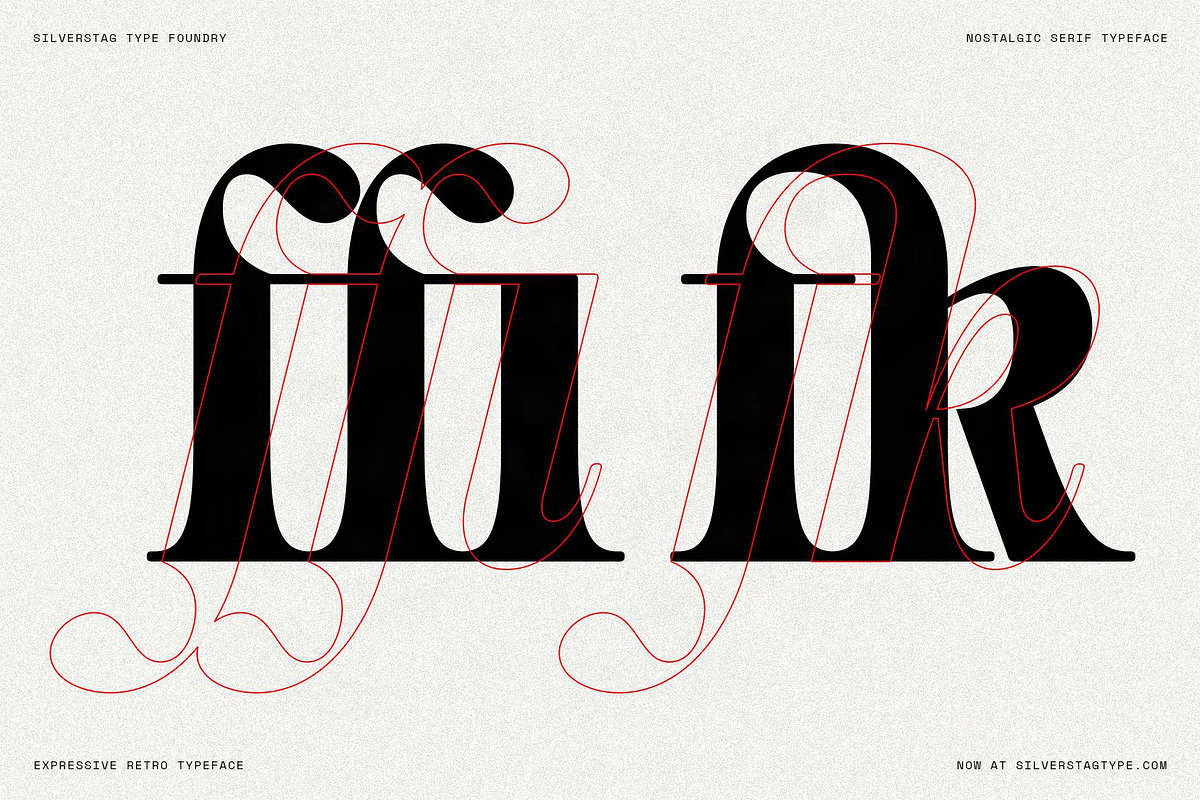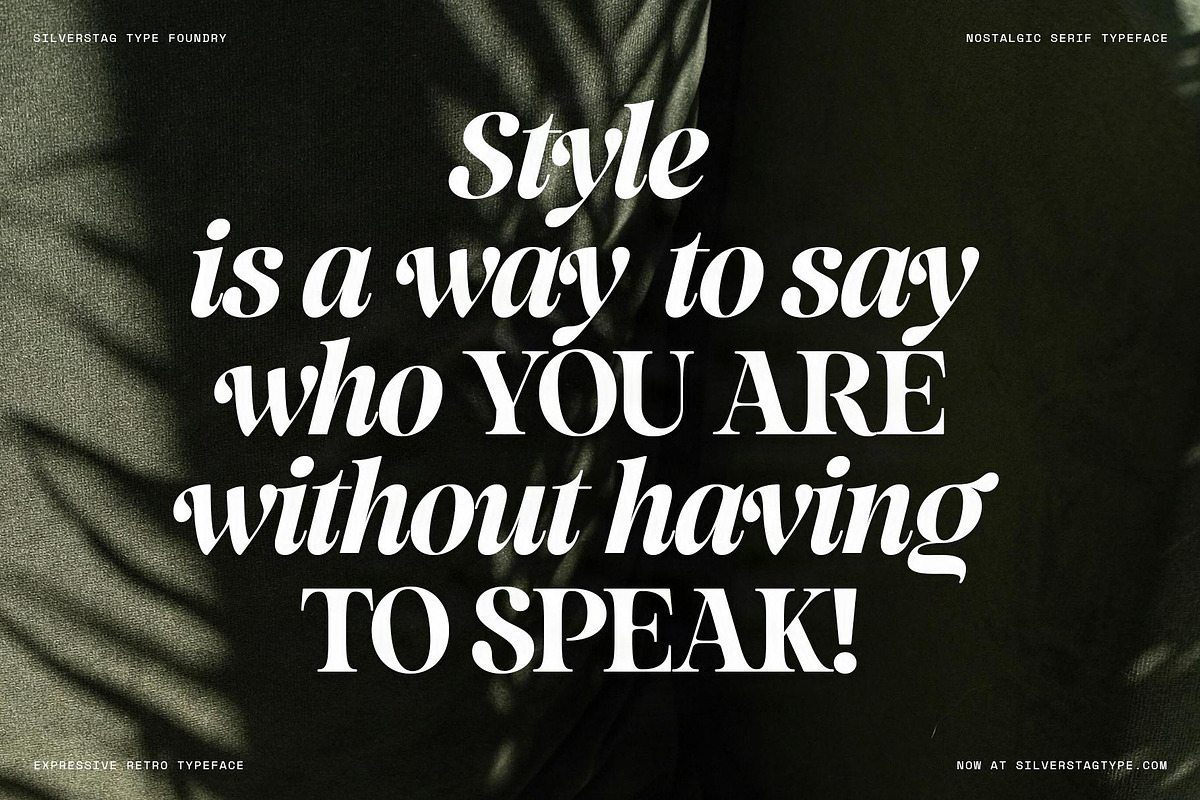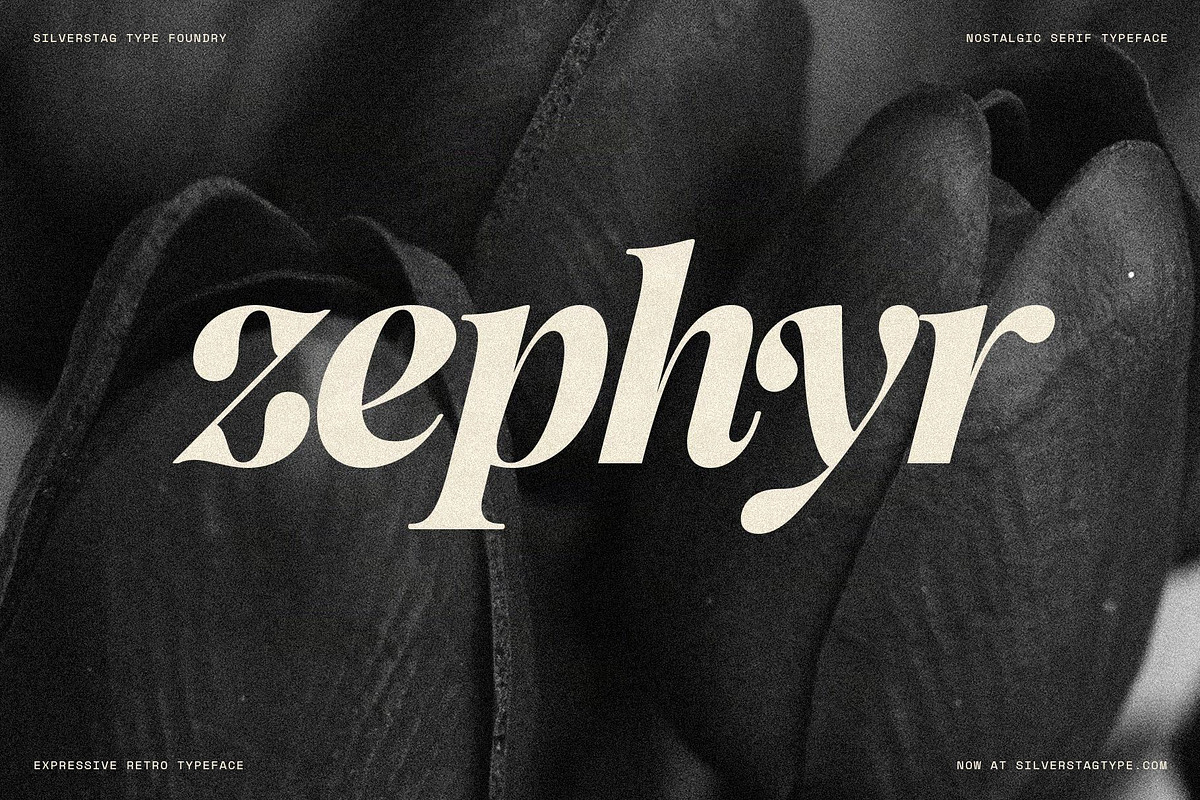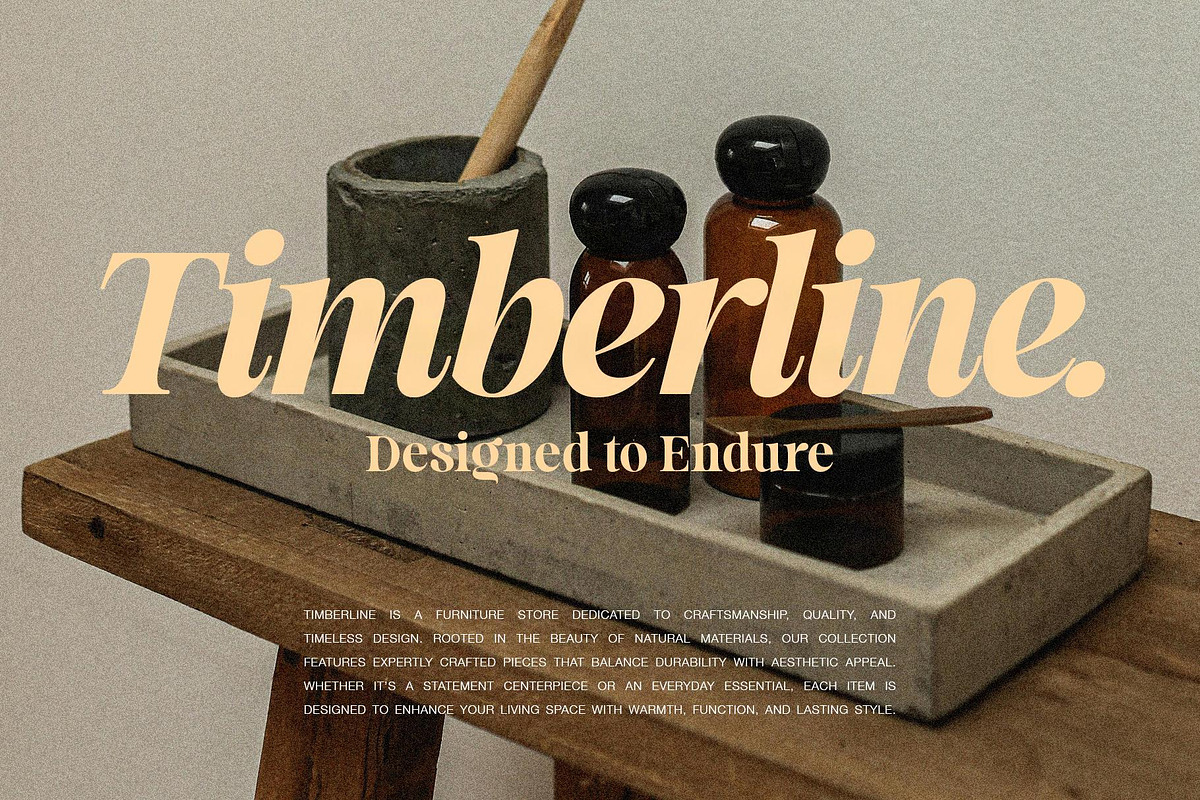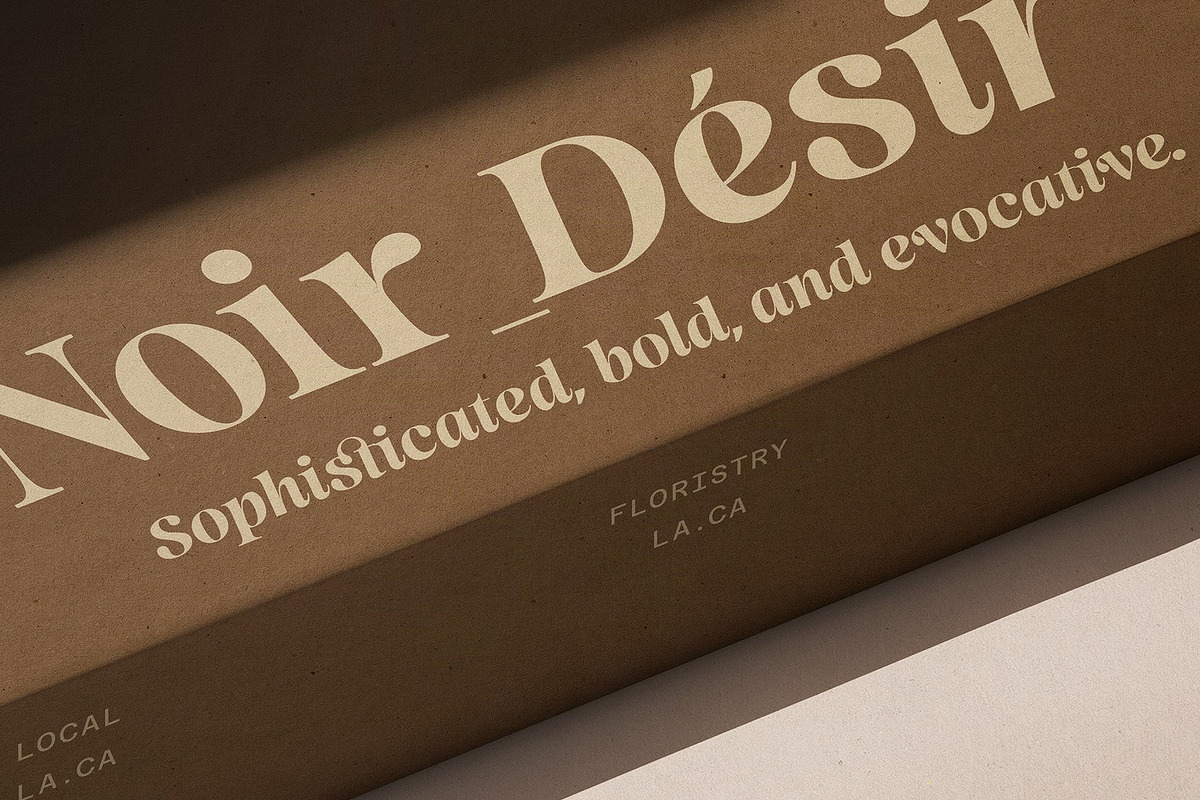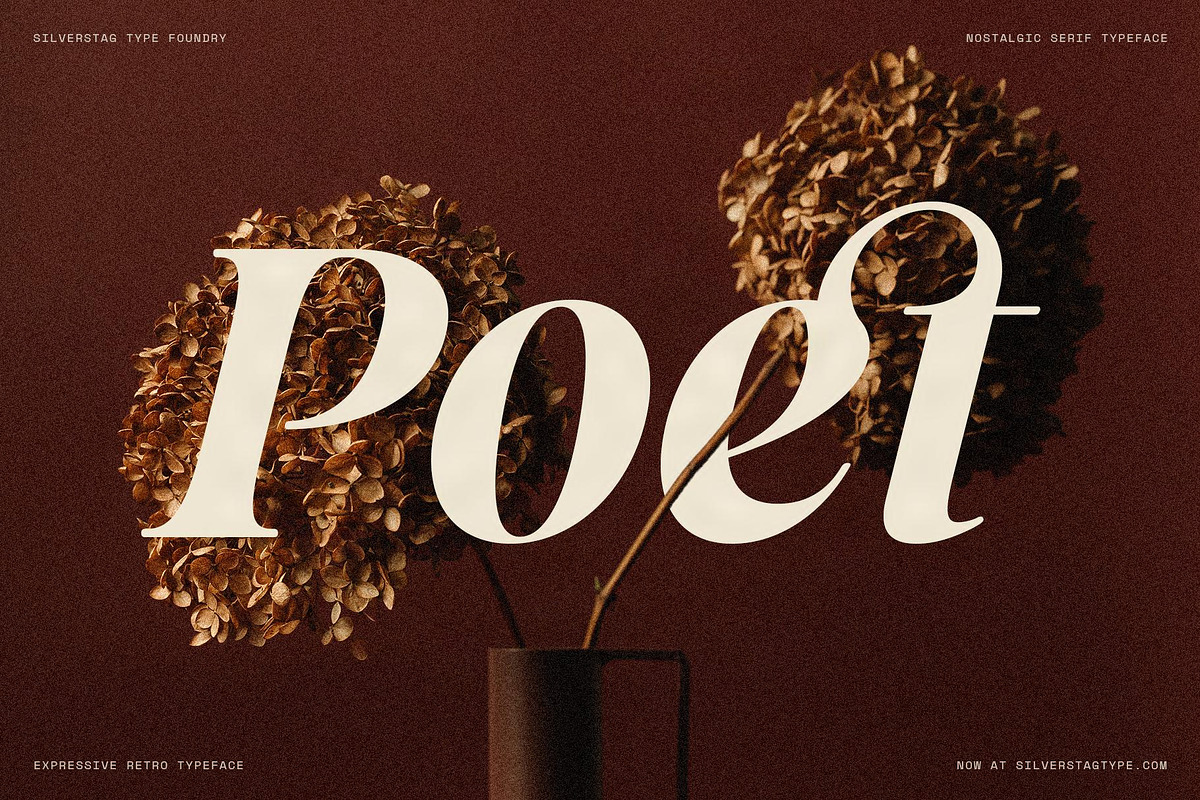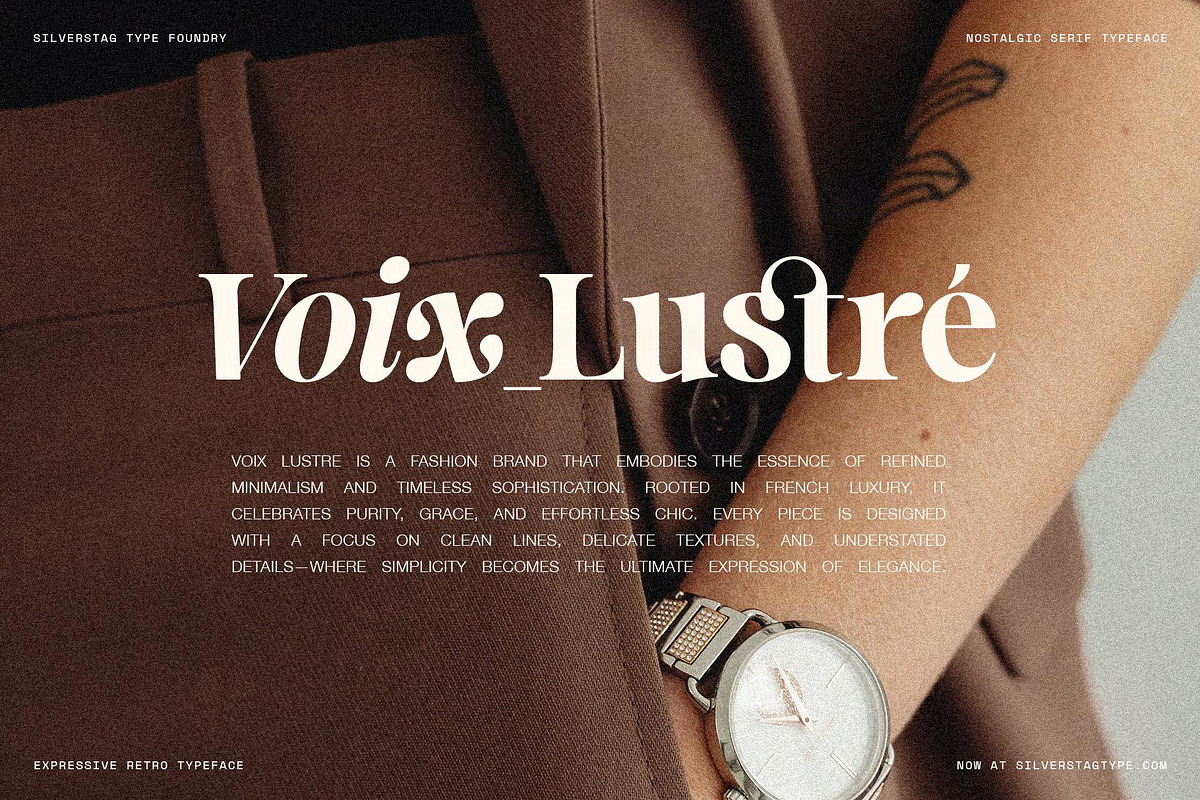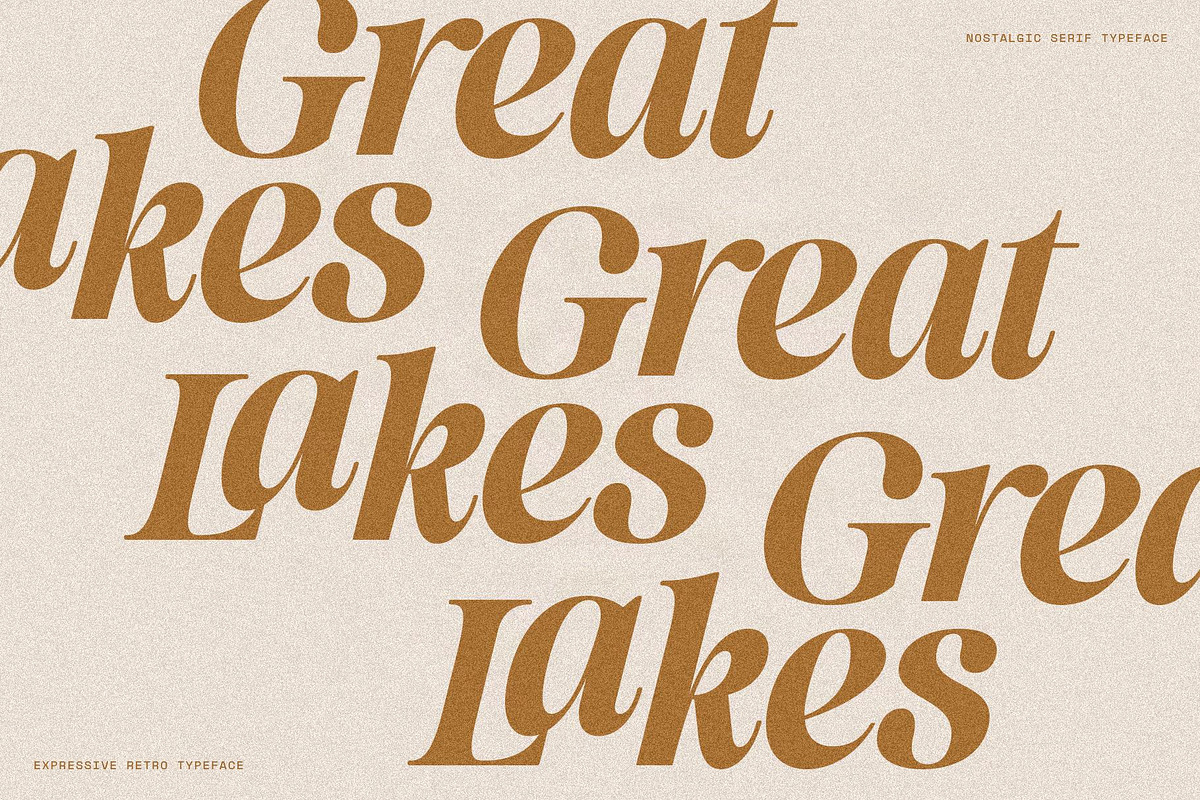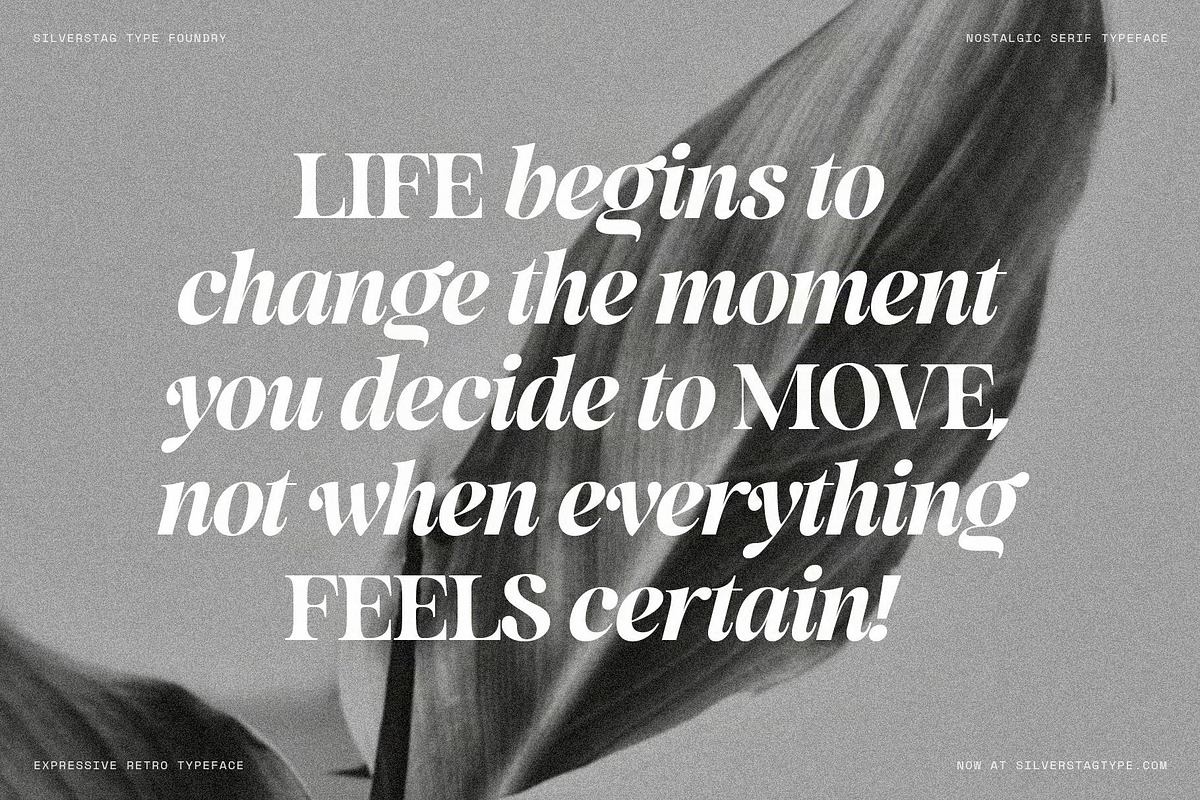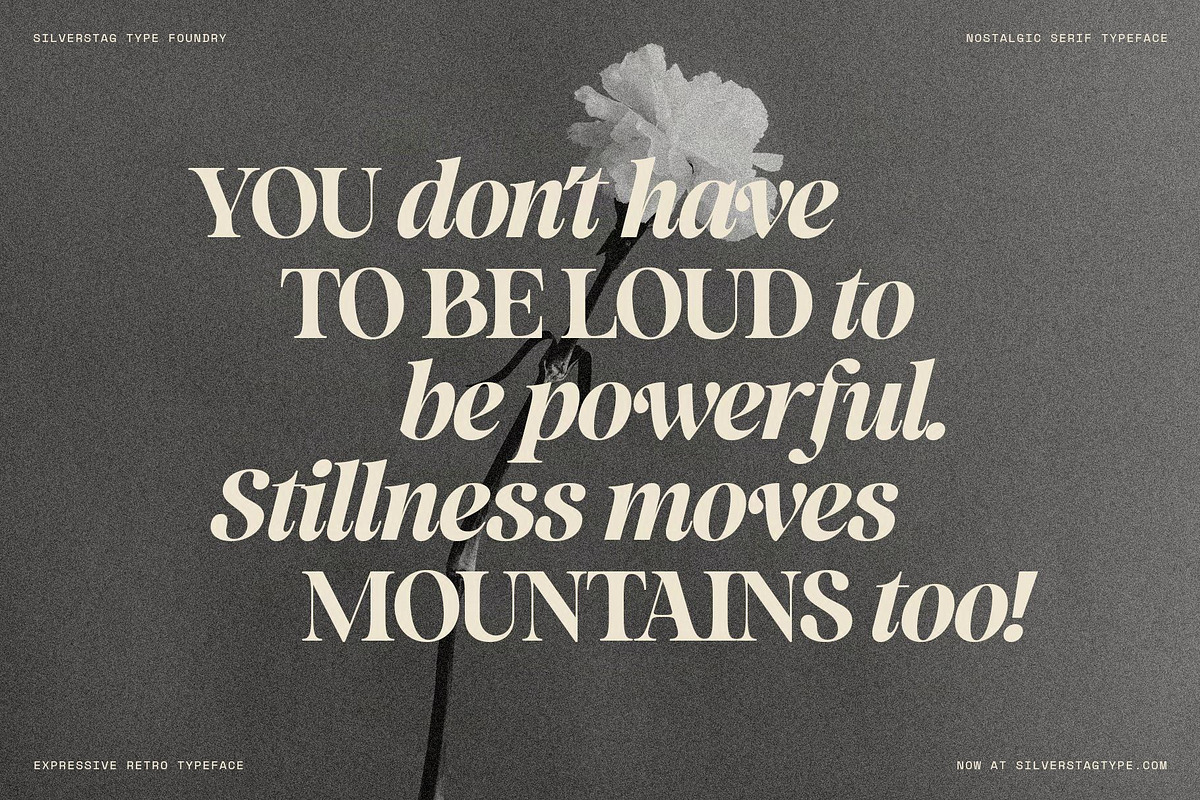
La Mystere - Editorial Serif Font
Meet SLTF La Mystère – a bold and graceful serif typeface designed with expressive curves, soft edges, and beautifully sculpted serifs. Crafted for designers who want to create refined, editorial-driven work, La Mystère blends classical inspiration with modern flair.
This font is perfect for magazine layouts, luxury branding, book covers, packaging, and high-end social media graphics. Its elegant contrast and subtle flair give your text a voice that feels confident, timeless, and stylish.
La Mystère comes in two variants – Regular and Italic – both rich in personality and designed to bring charm and sophistication to your typography.
- Two styles included – Regular and Italic
- High contrast serif with soft curves and rounded details
- Perfect for editorial, fashion, packaging, and branding
- Designed with elegance and usability in mind